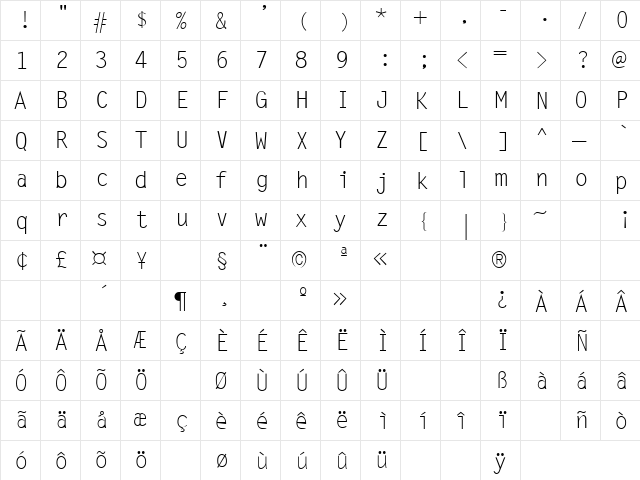
Celebration Day 4 Regular
Design Context for Celebration Day 4 Typeface
Celebration Day 4 takes a measured approach to typography — its balanced proportions and neutral character make it a reliable workhorse for both digital and print work.
Pro Tip: Use Celebration Day 4 in both headline and body roles to test its range before committing to a single application.